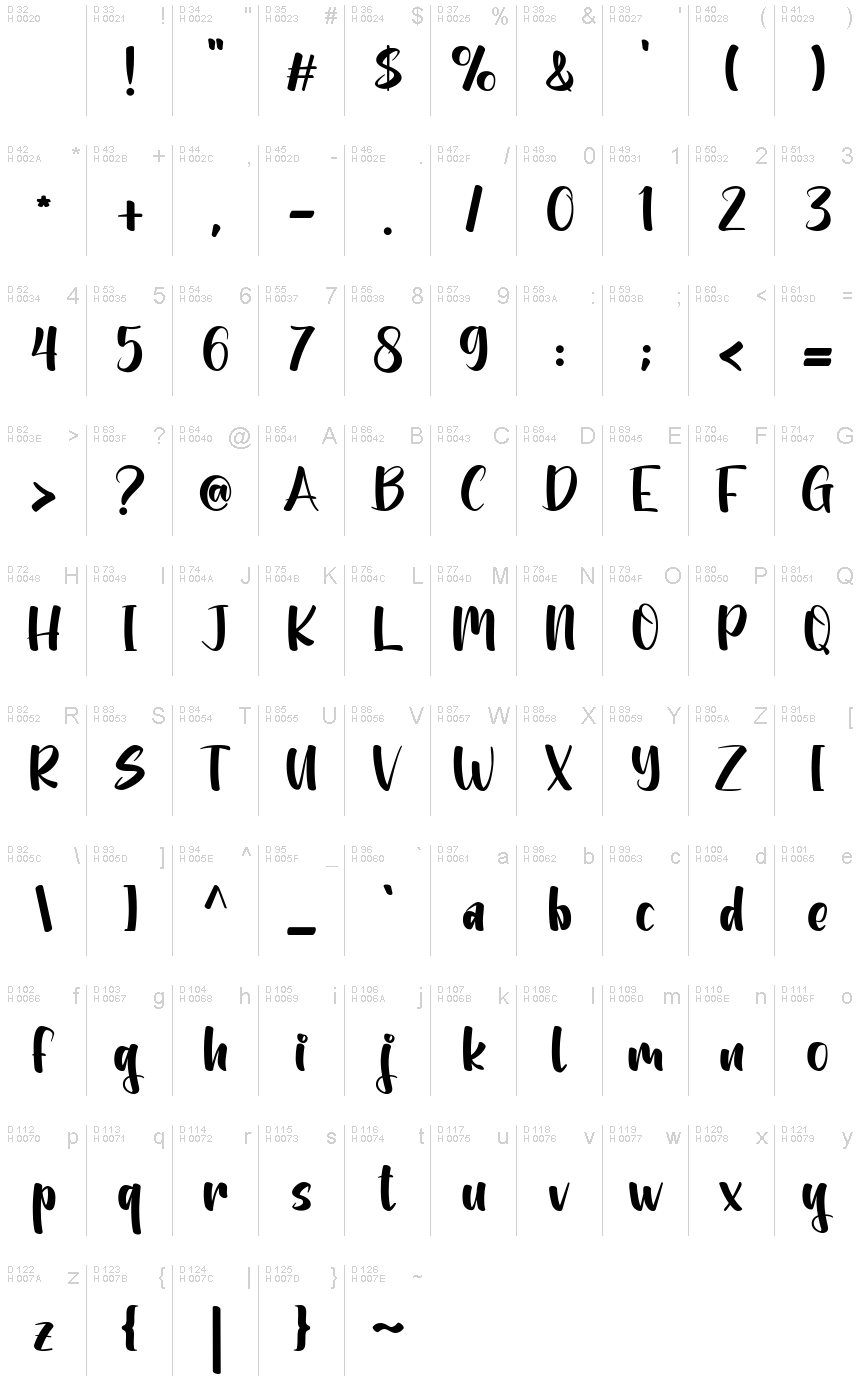
Hocus Pocus, a creation by Graphix Line Studio, embodies the spontaneous energy of hand-painted signage with its semi-bold brush style. This font dances between casual elegance and playful dynamism, making it a versatile choice for an array of design projects. Each stroke in Hocus Pocus reveals a deliberate imperfection that adds character and an organic feel to the text.
Whether it's to inject personality into branding, add charm to editorial designs, or create eye-catching graphics, this font's aesthetic appeal is undeniable. Perfect for those seeking to infuse their work with a touch of whimsy while maintaining readability and impact, Hocus Pocus stands out as a uniquely stylish typographic choice.